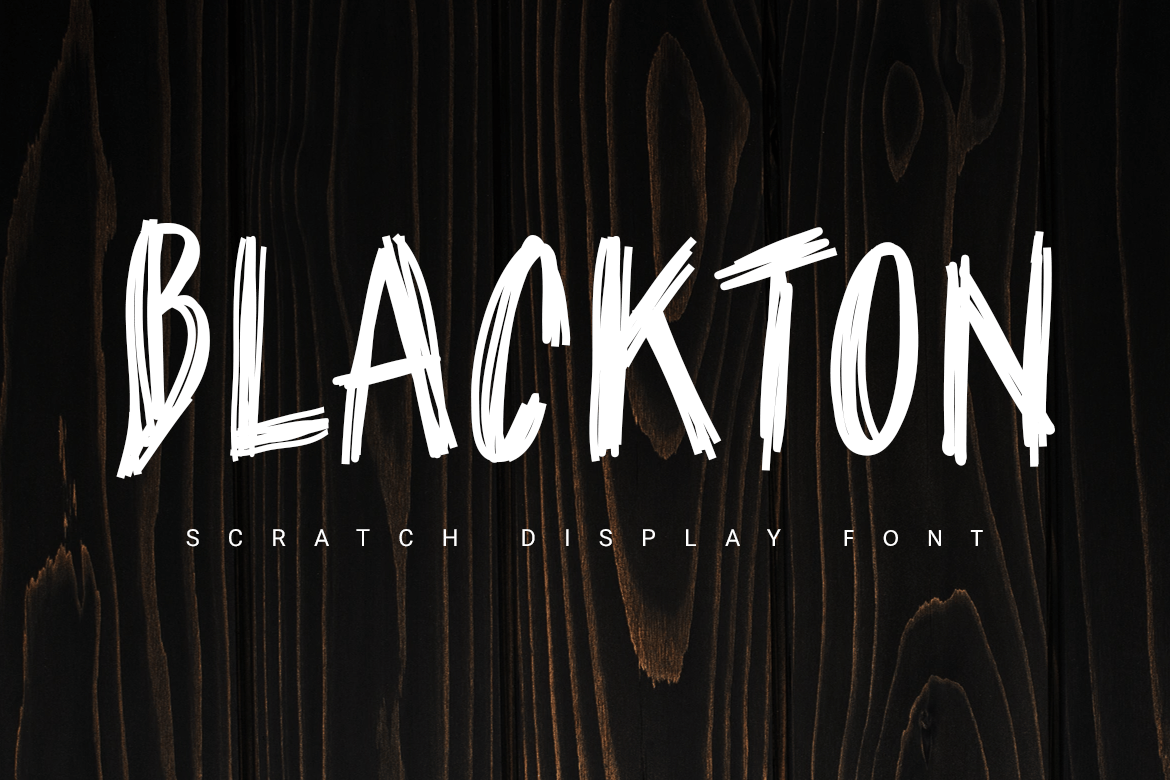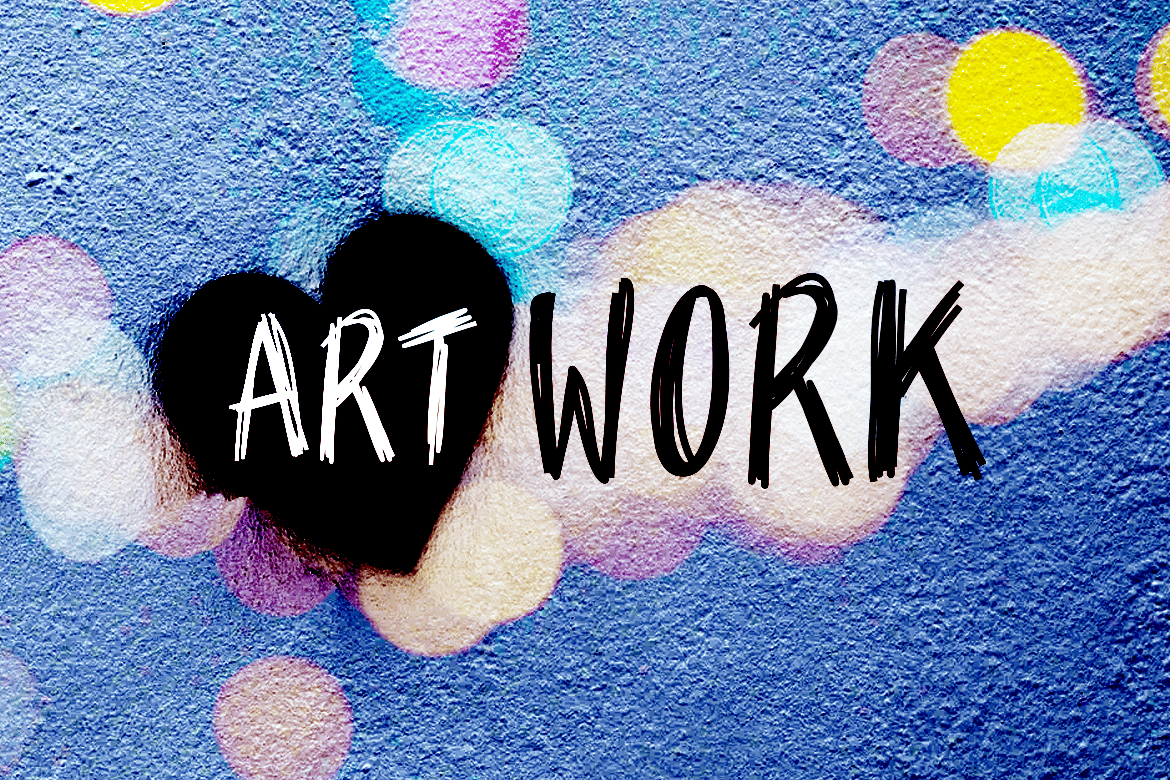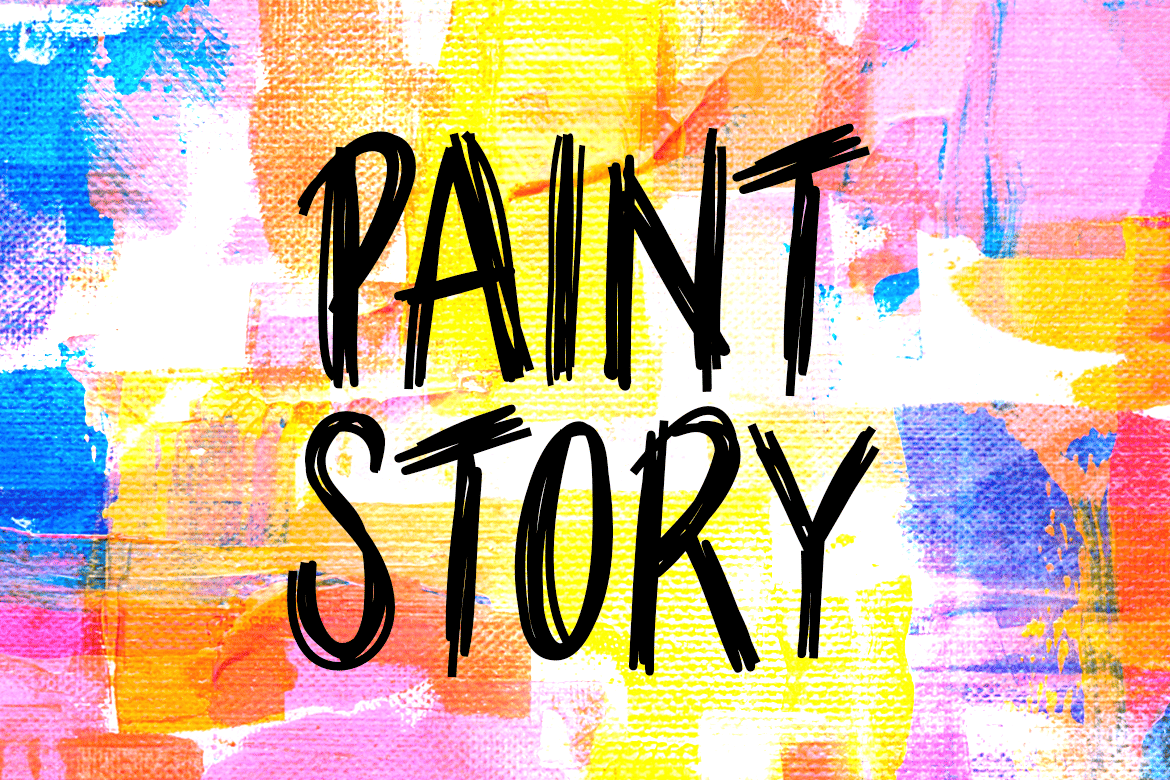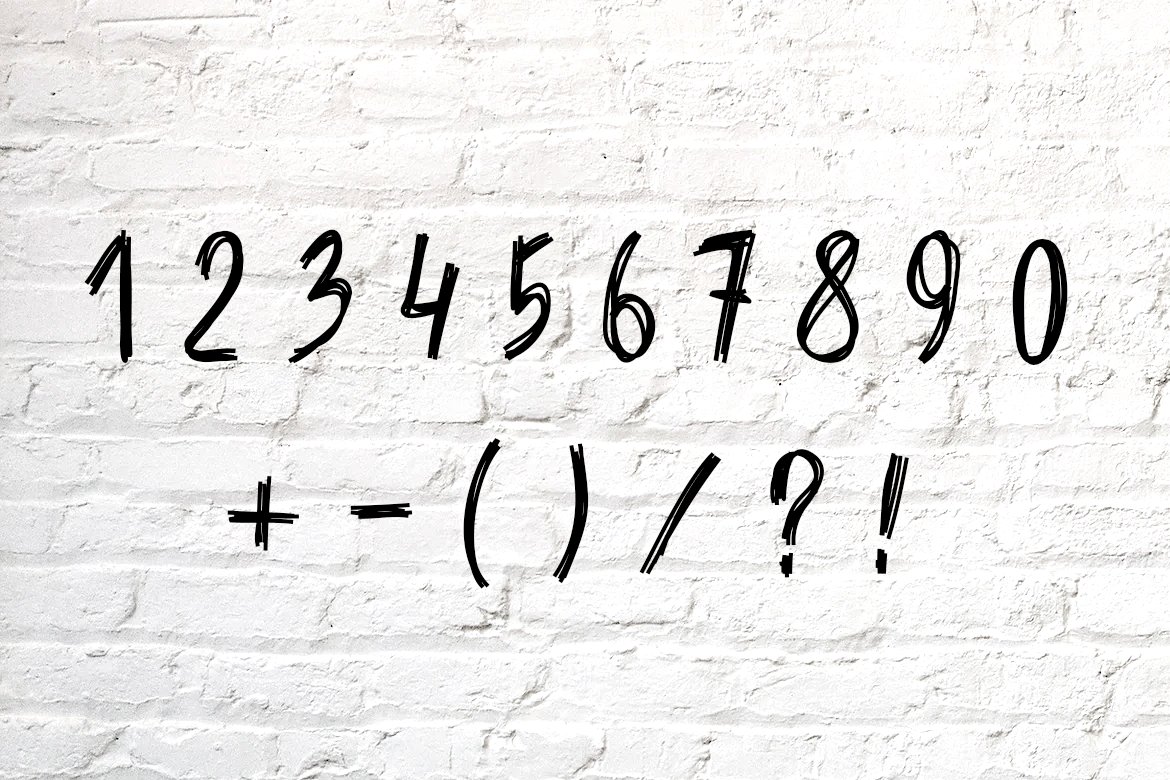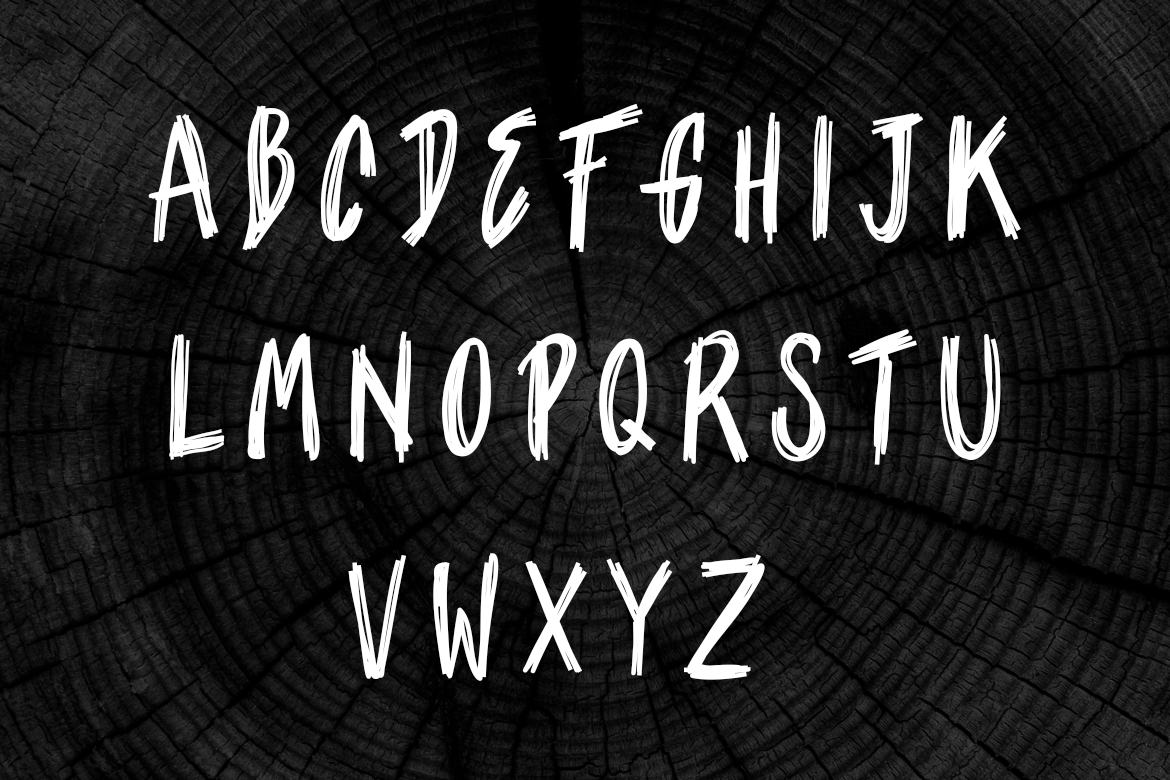
Blackton | scratch font
Blackton is a sans serif font designed with rounded thick textured letters. It looks like the letters were scribbled with a marker by hand. The font is bold, but good readable. It works great to make short titles. The font looks great both on a dark and a light background.
- capital letters
- numbers
- special characters set